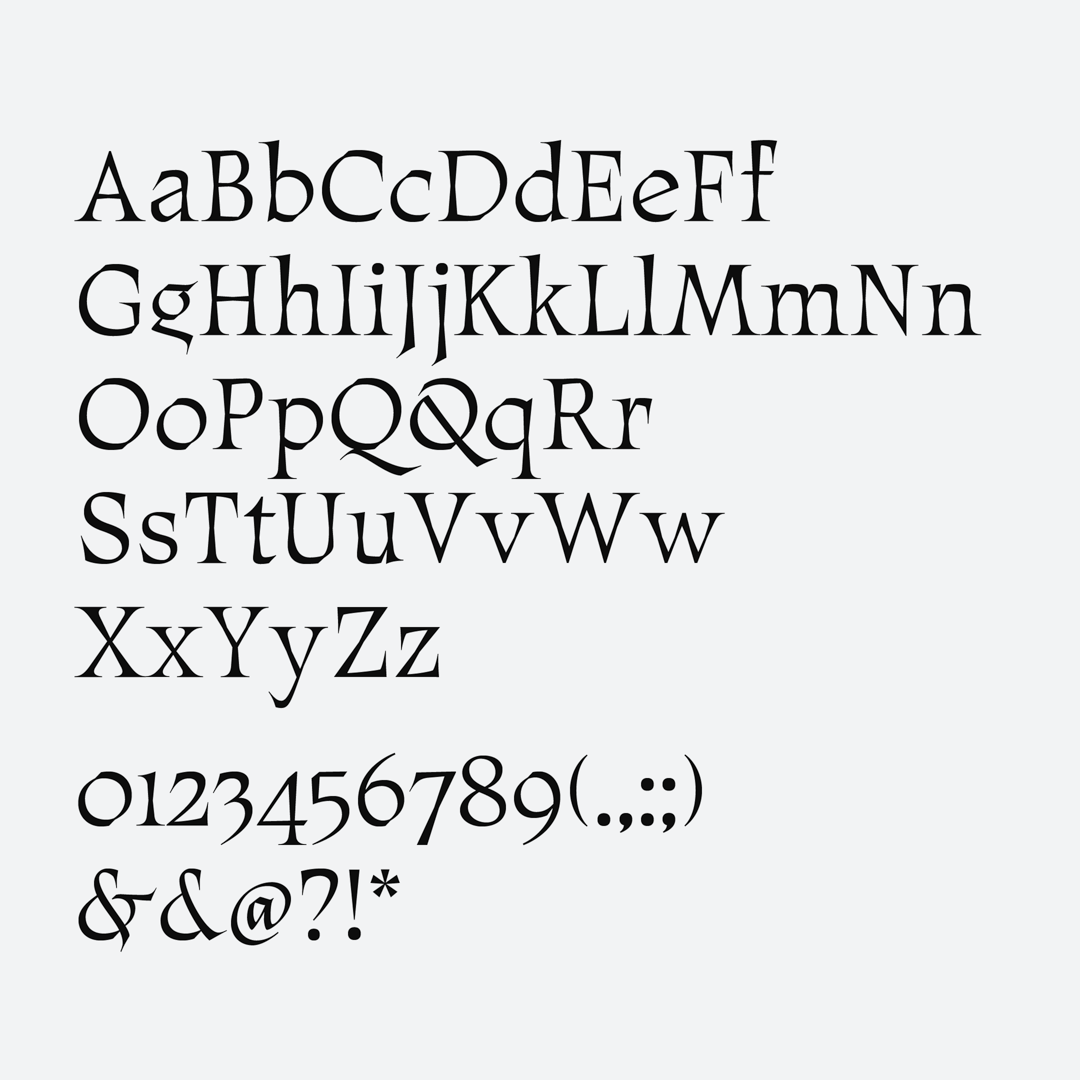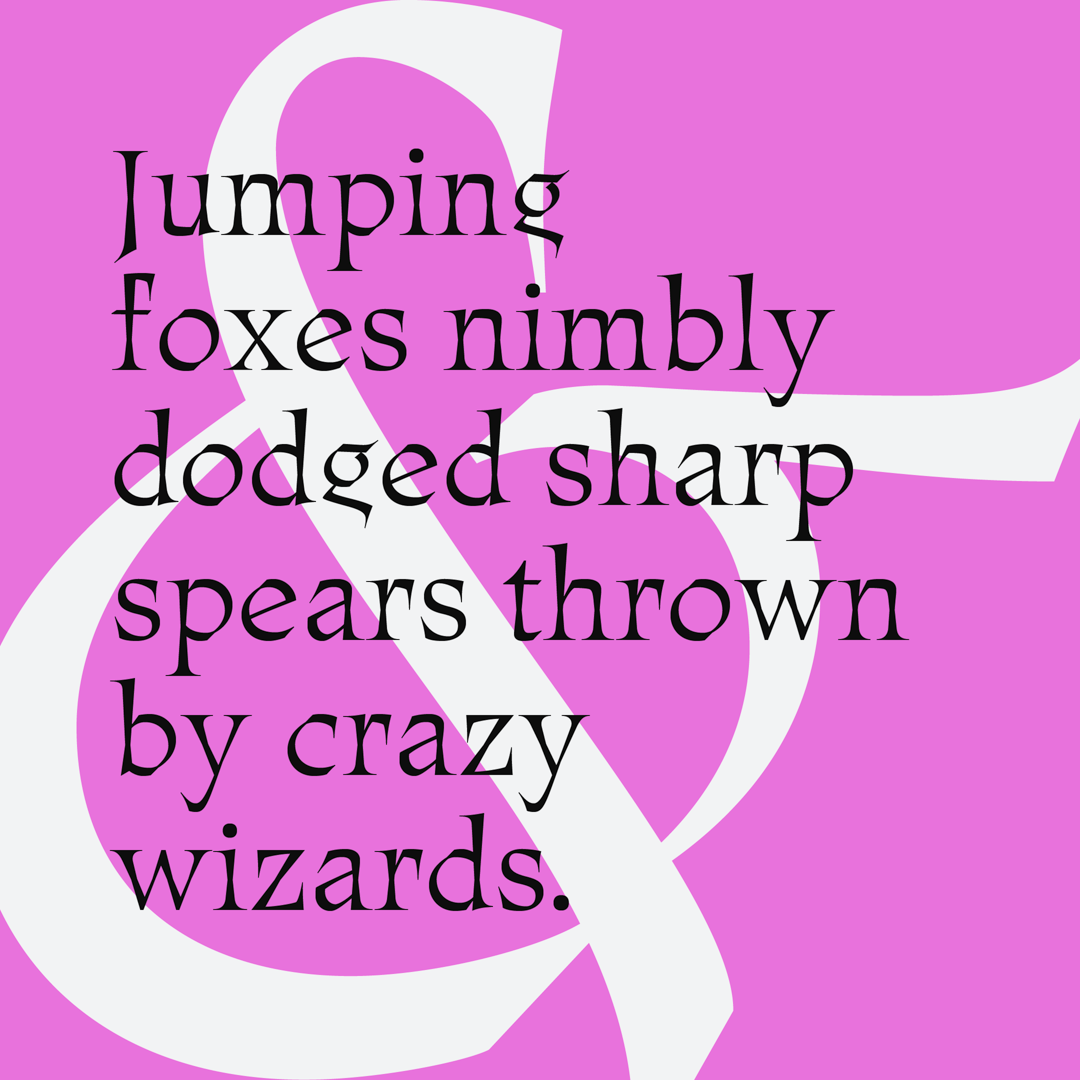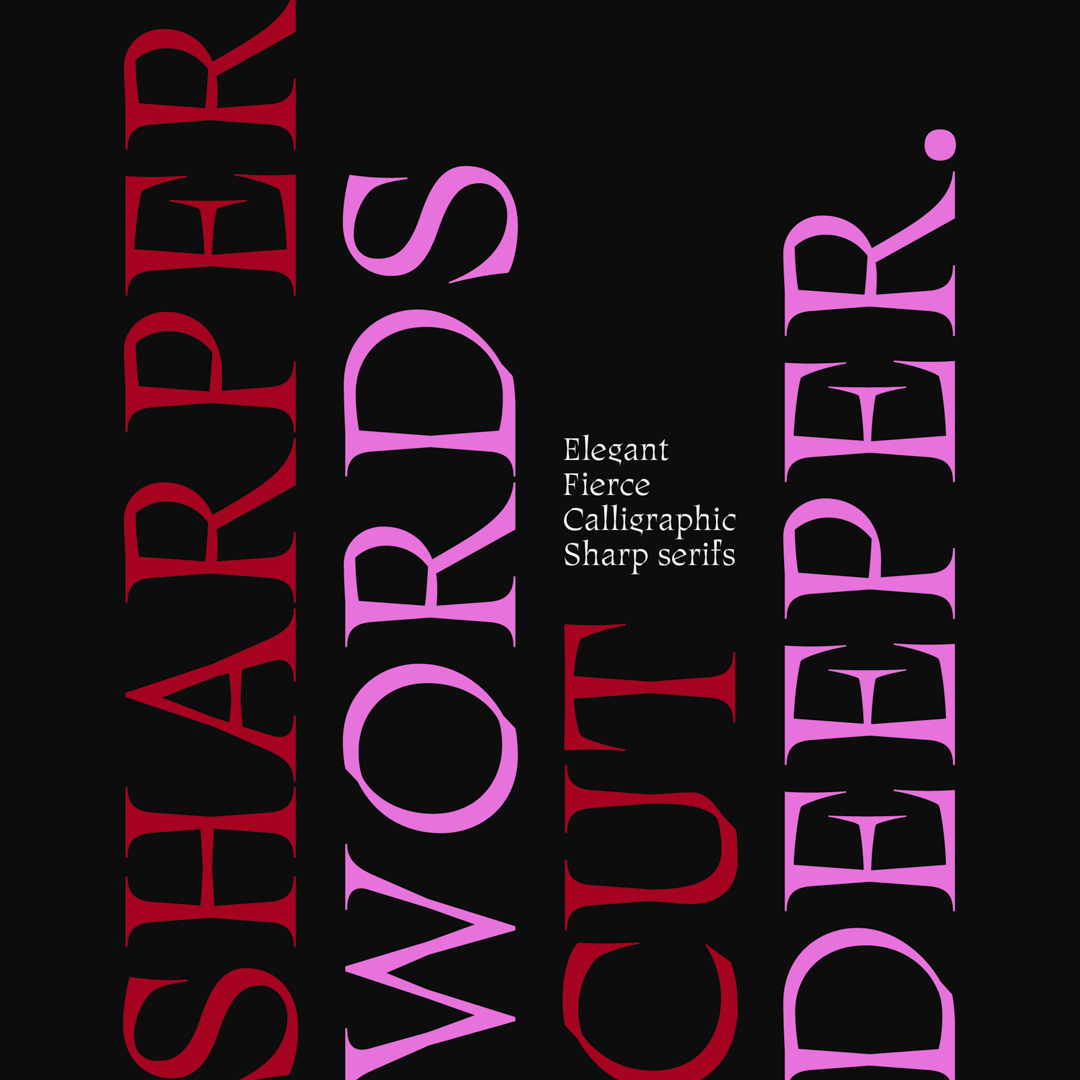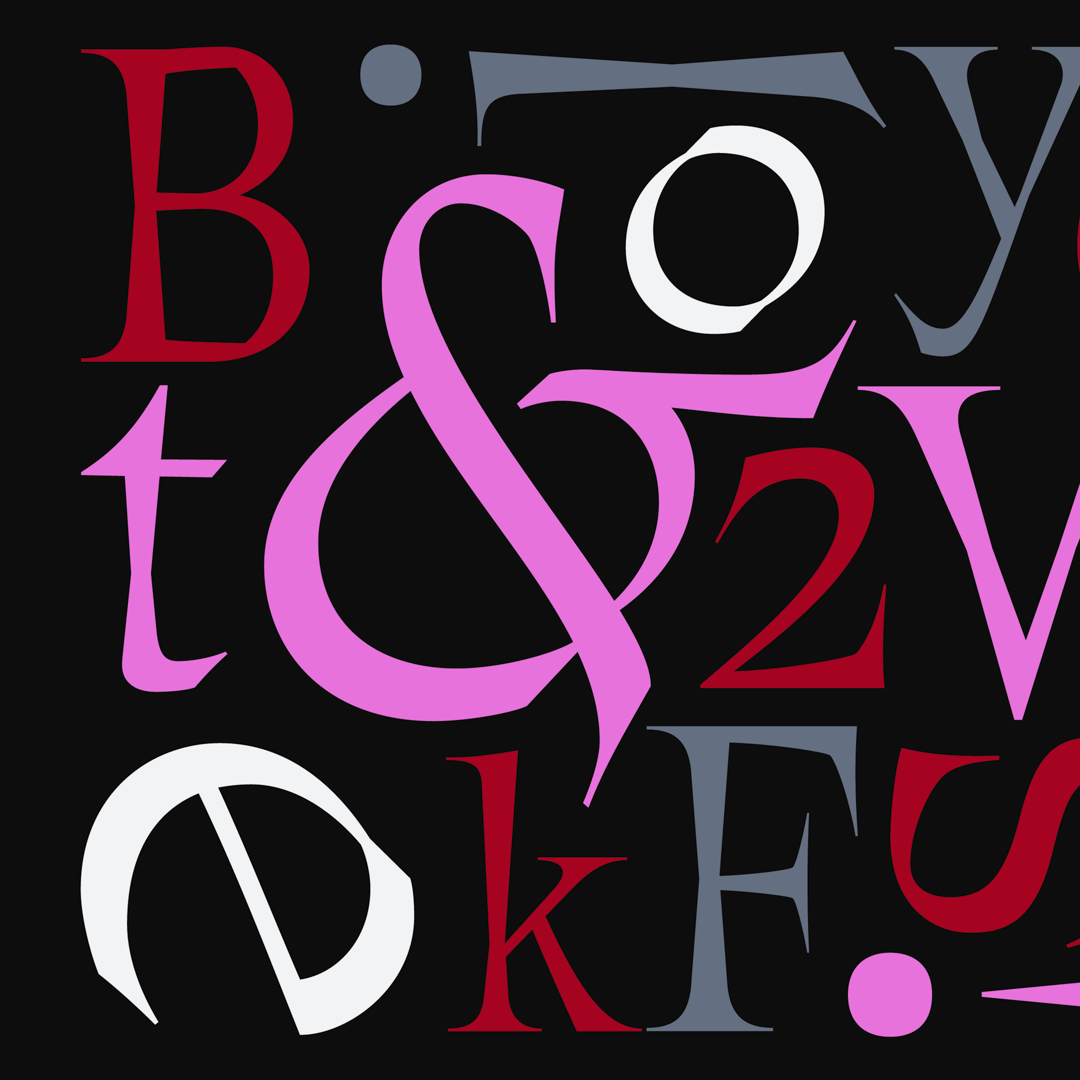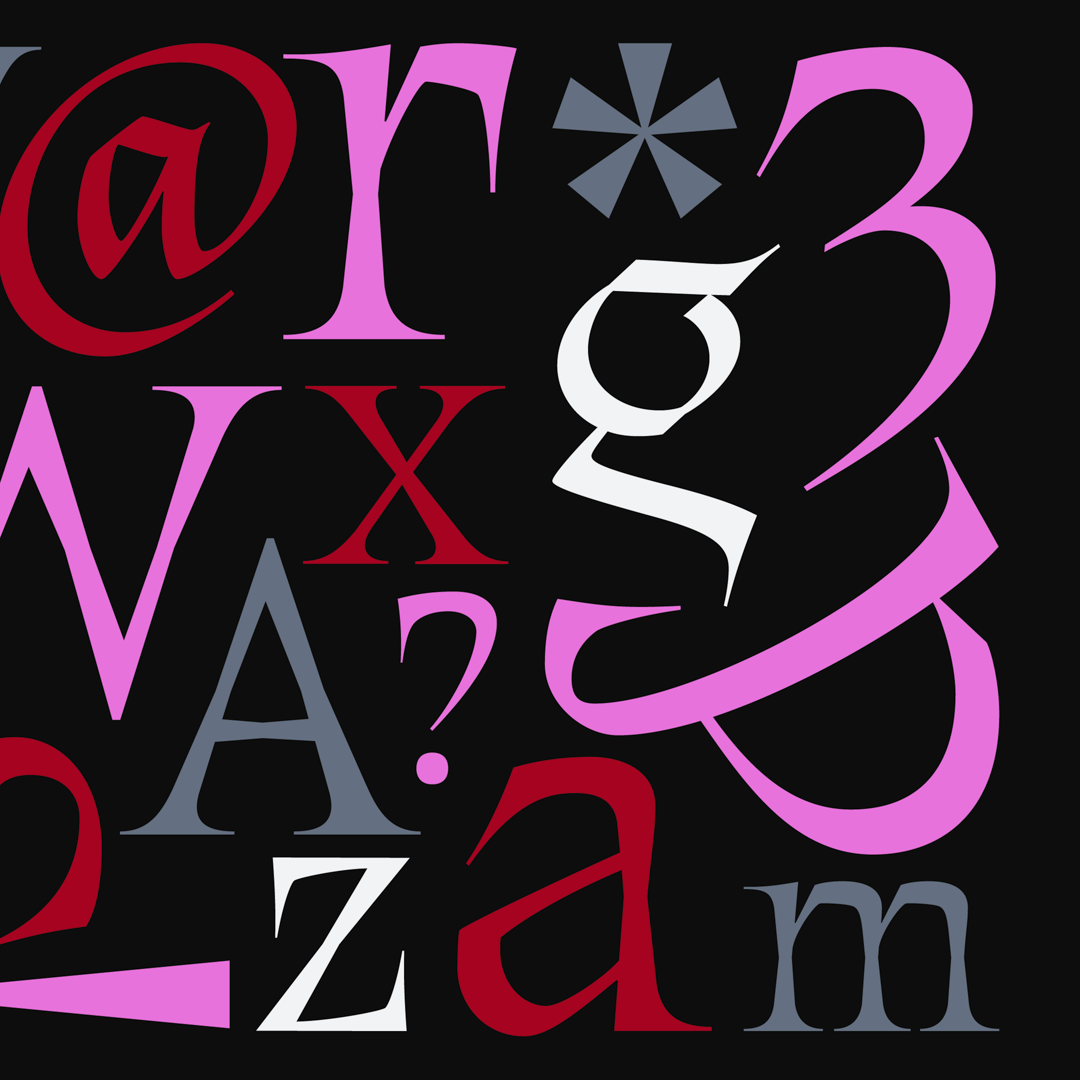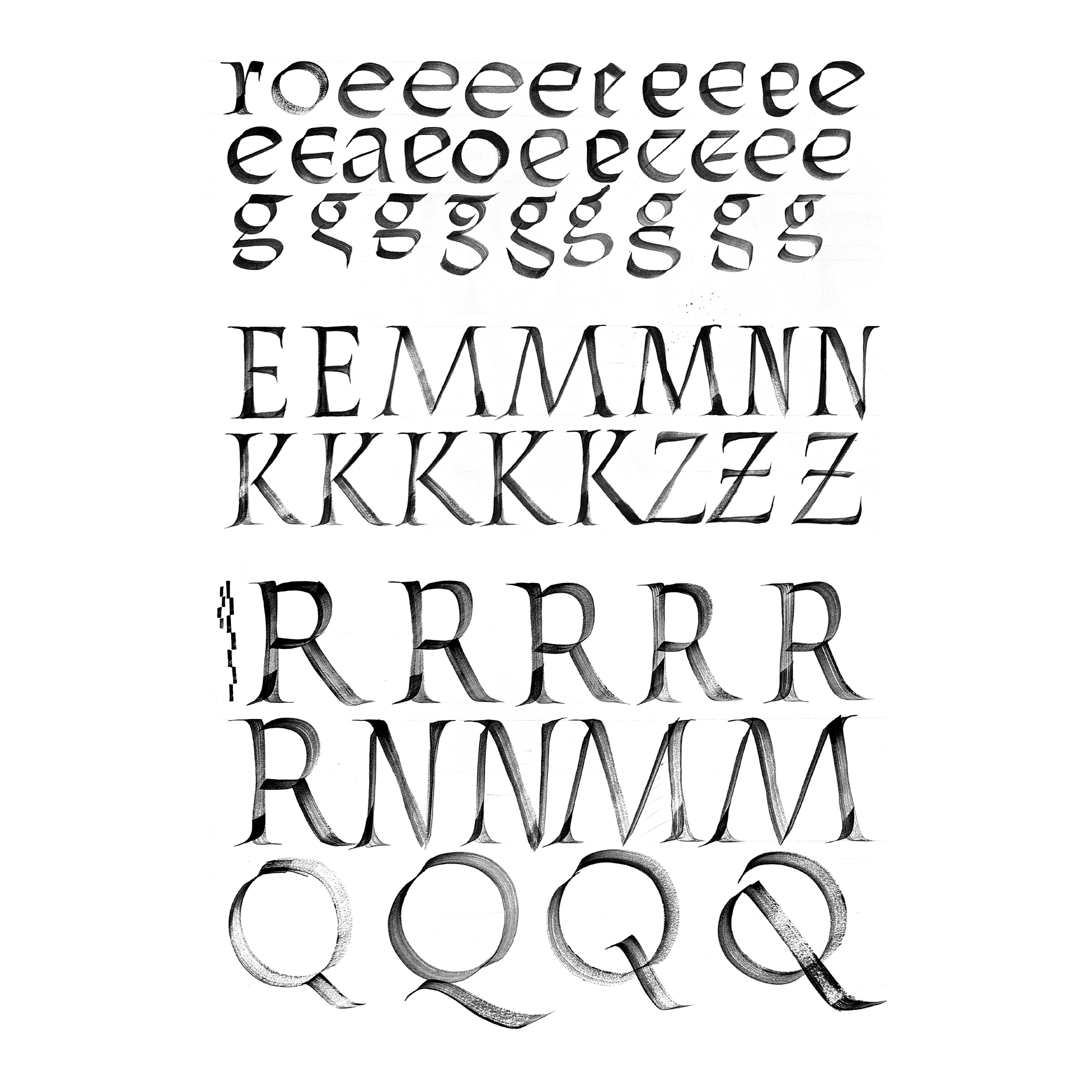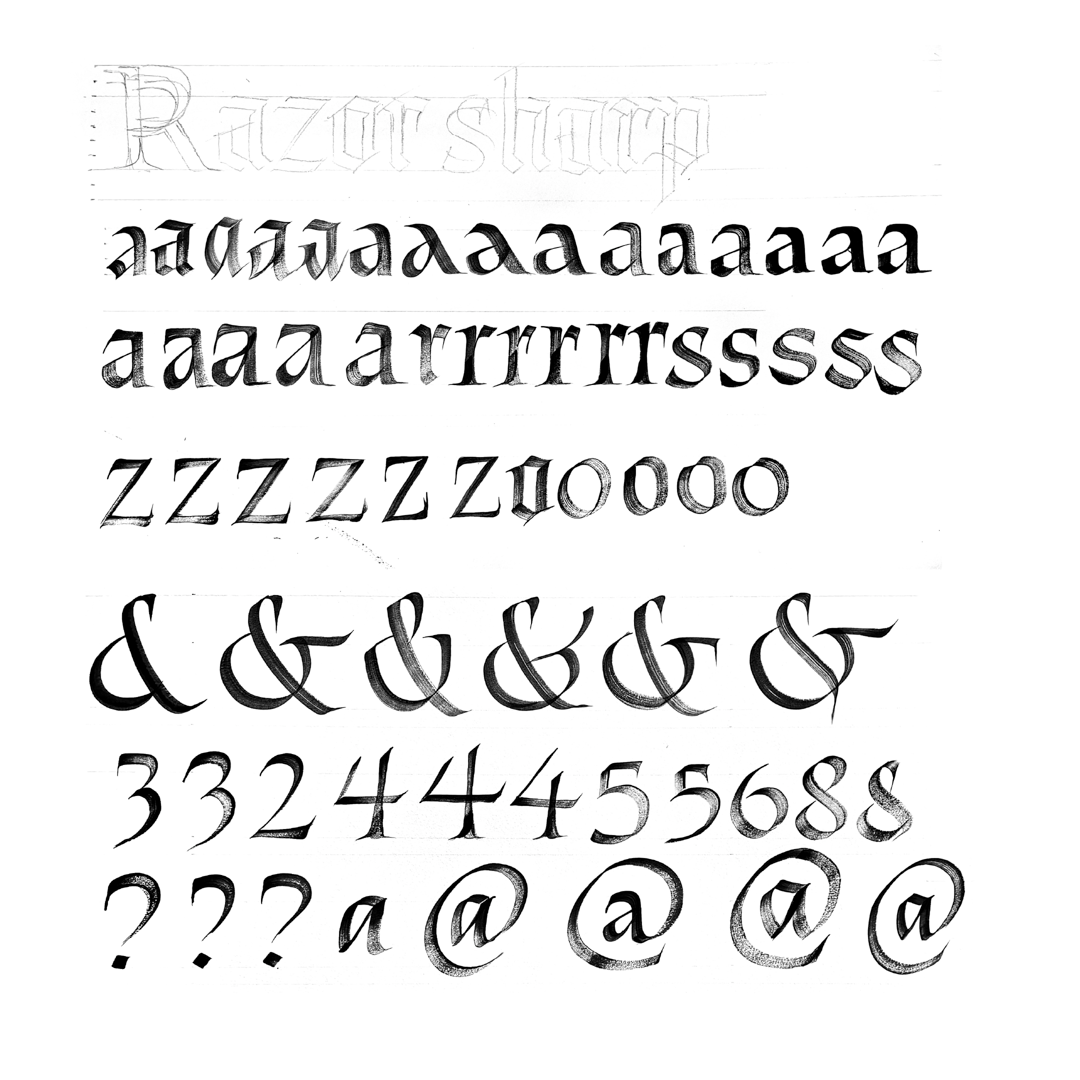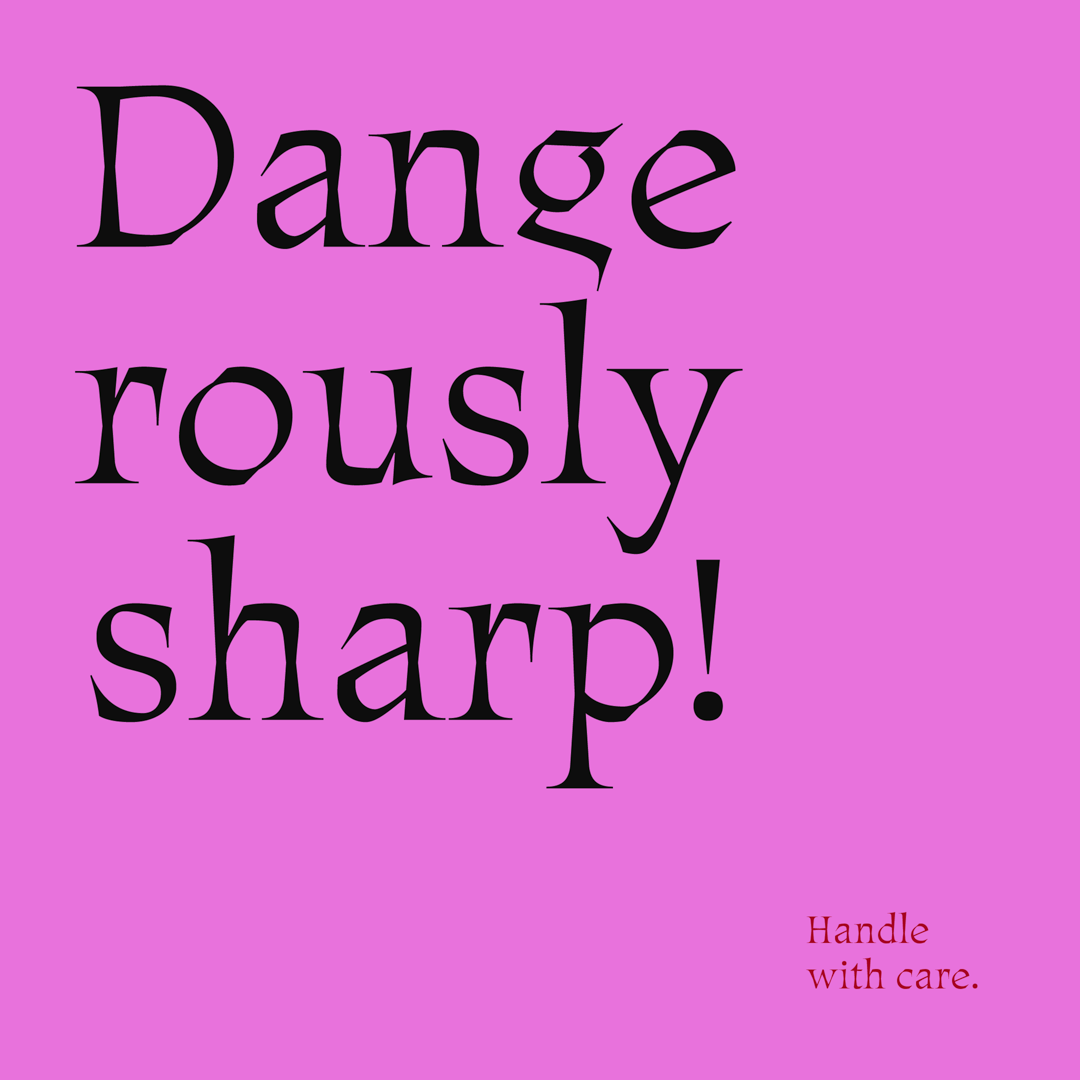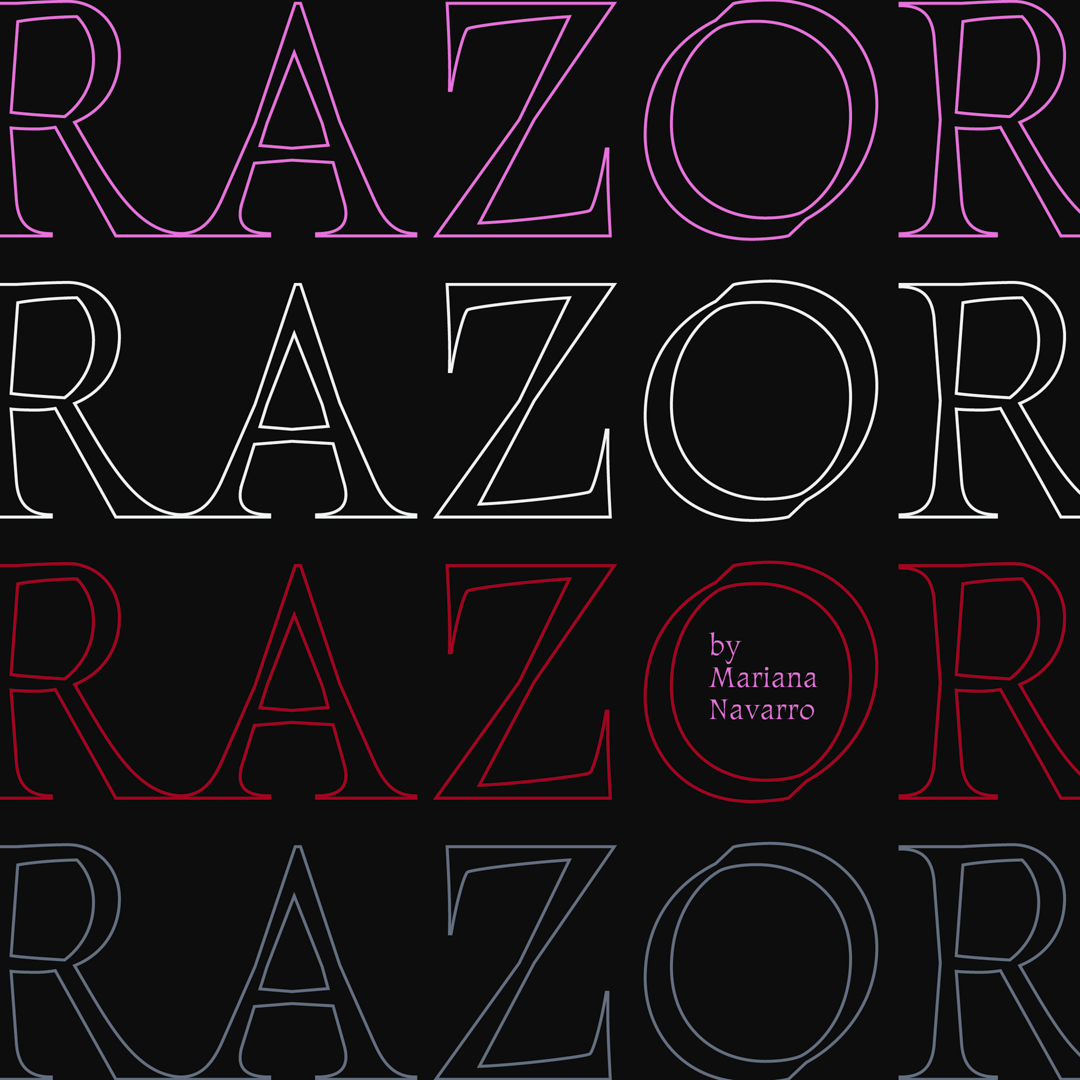
Razor is a typeface that brings together everything I love about letters. With its calligraphic strokes and sharp serifs, that looks almost too dangerous if one could touch them. It has a bold personality that’s both fierce and elegant. Designed during the Display Type Course at Type Electives, Razor is a reflection of my evergrowing passion for the art of letters.
Exploration through calligraphy with the flat brush has been the basis of Razor’s creative process. Understanding and discovering the shapes and strokes that can emerge from handling the tool on the paper, in an attempt to combine different styles and play with some proportions, formed the personality of this typeface.
Mariana Navarro is a type designer and visual artist based in São Paulo, Brazil. Since 2018, she has been creating projects specializing in lettering, calligraphy, and type design for various applications. Her approach to each project focuses on finding the perfect balance between traditional and digital techniques.